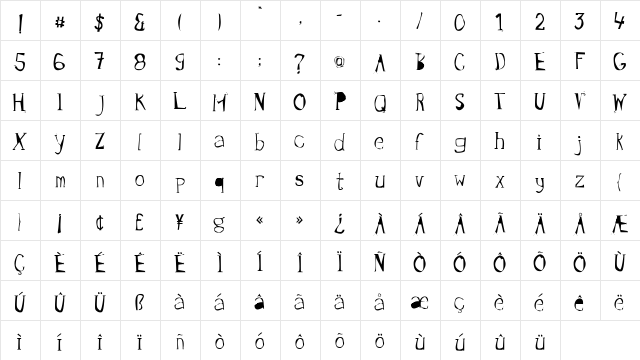
Scratch Regular
Design Context for Scratch Typeface
Scratch is a composed and adaptable typeface that performs quietly and consistently across a wide range of design contexts.
Pro Tip: Pair Scratch with a font of contrasting weight or personality to build a more expressive typographic hierarchy.